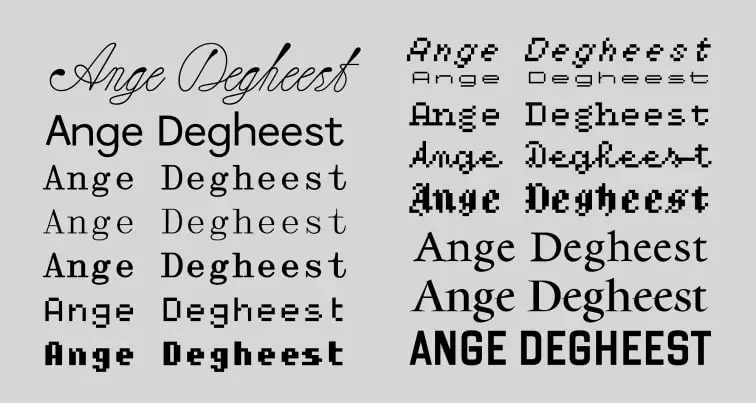
Ange Degheest Fonts
Introducing the Ange Degheest Fonts, a carefully crafted typeface that brings elegance and sophistication to your design projects. With a variety of styles and weights, this font family is perfect for both digital and print applications.
• Multiple styles and weights for versatile use
• Clean and modern design suitable for various projects
• Easy to read, making it ideal for branding and advertising
Utilize these fonts for creating stunning logos, branding materials, web design, and print layouts. Their versatility allows for creative freedom in both professional and personal projects.